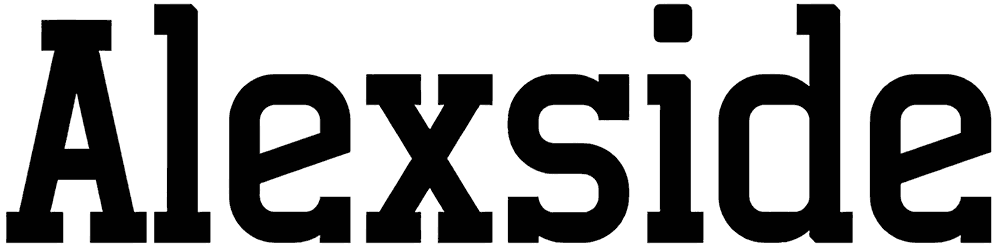
Alexside Font
Would you like to have a retro and matchable face for your coming design? As a slab serif font, Alexside, with its classic but unique face, can make this happen. With an almost full cover of characters in two versions, Alexside can be a perfect show for your creative designs, such as web graphics, posters, games, logos, and many others the same.